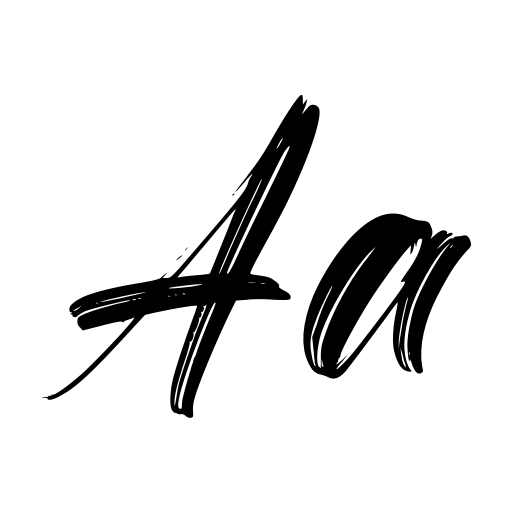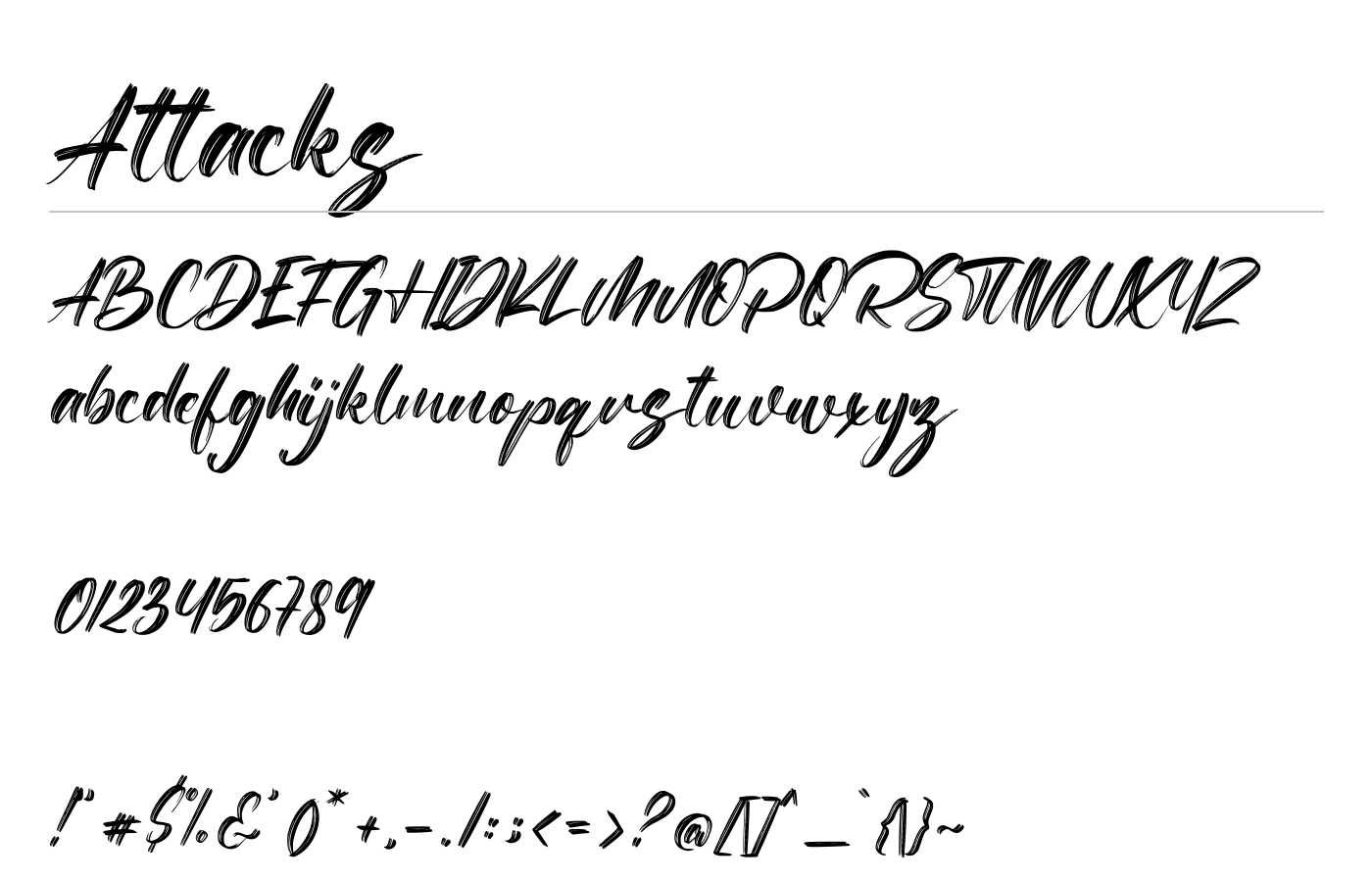
Attacks Font is a lively and expressive script typeface featuring dynamic, brush-style strokes that bring a sense of energy and movement. Its sharp, flowing letterforms combine casual elegance with a bold personality, making it perfect for creative branding, eye-catching headlines, and playful design projects that need a touch of handcrafted charm.
Attacks Font
About Attacks Font
| Font family | Attacks Font |
| Designer | Fatmawati |